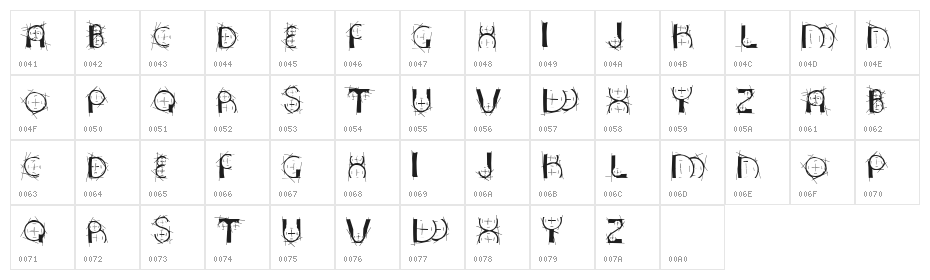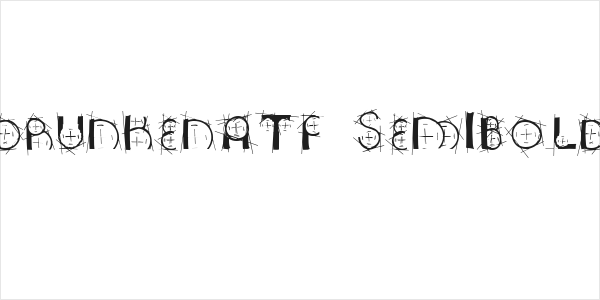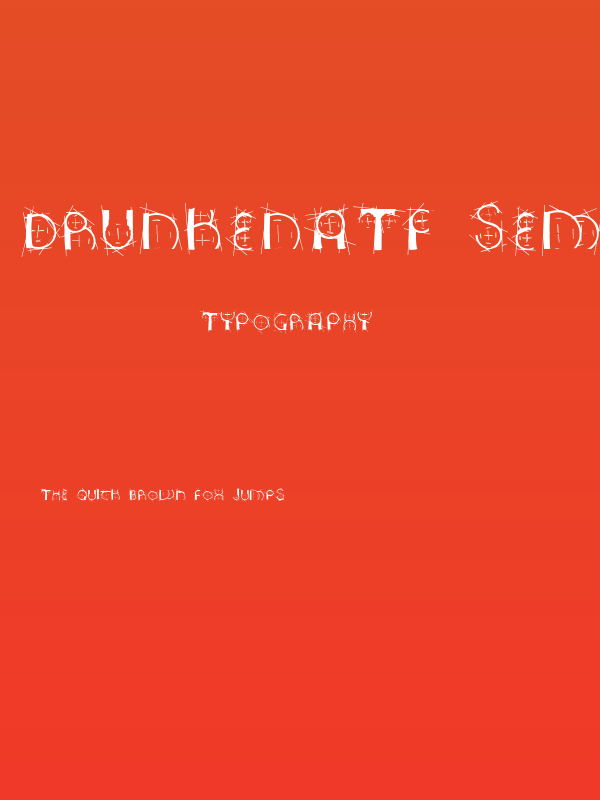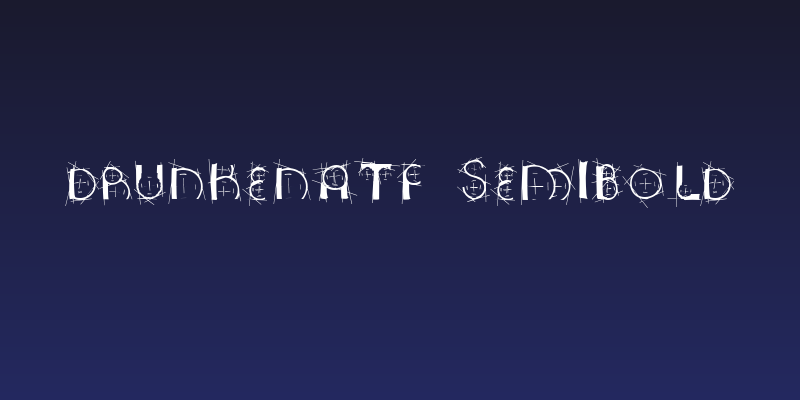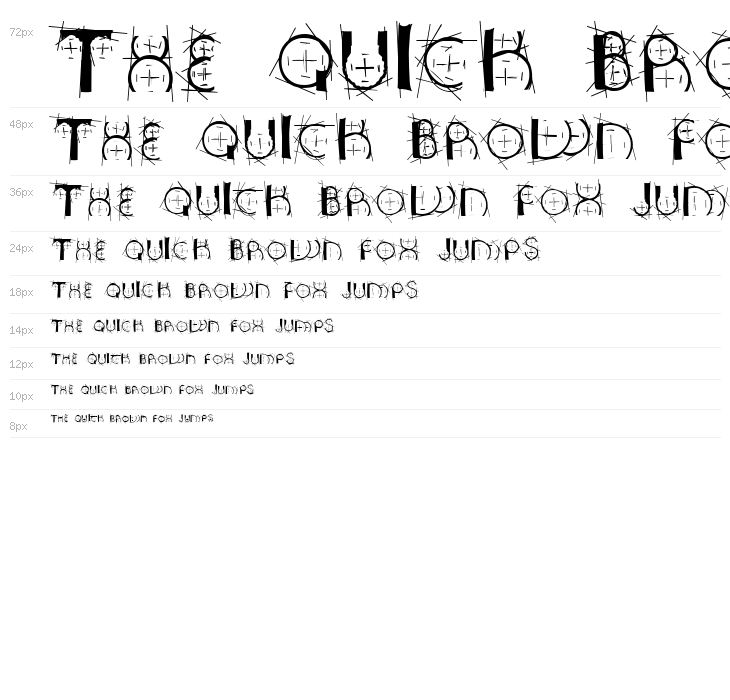
DrunkenATF SemiBold Font
DrunkenATF SemiBold Description
This font features a unique and chaotic design, characterized by its irregular, jagged edges and overlapping lines that create a sense of movement and energy. The letters appear as if they are constructed from a series of intersecting lines and shapes, giving it a hand-drawn, almost graffiti-like appearance. The boldness of the characters is accentuated by the thick strokes, while the intricate detailing within each letter adds depth and complexity. This font stands out with its unconventional style, making it ideal for projects that require a bold and artistic statement.
| Proposed Projects | Ideal for album covers, street art-inspired designs, posters, and edgy branding projects. |